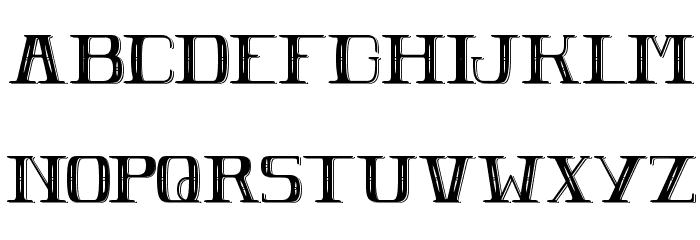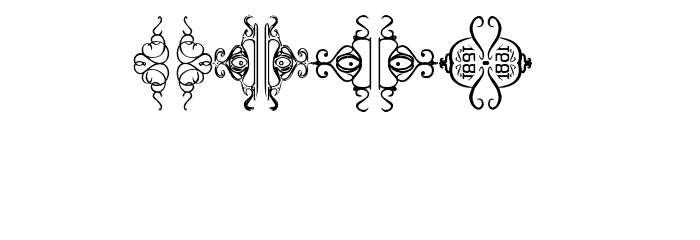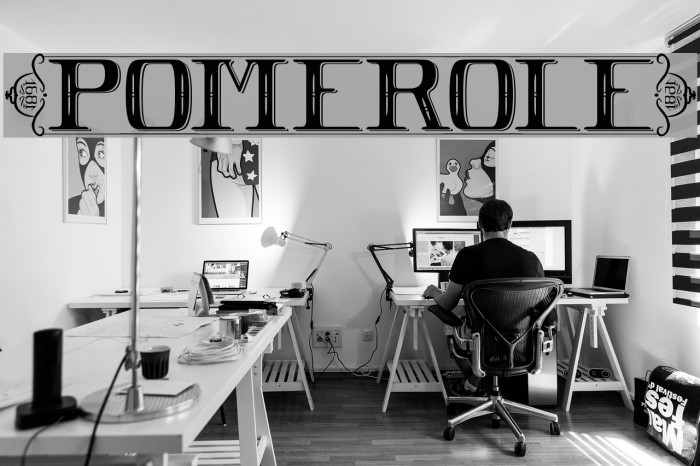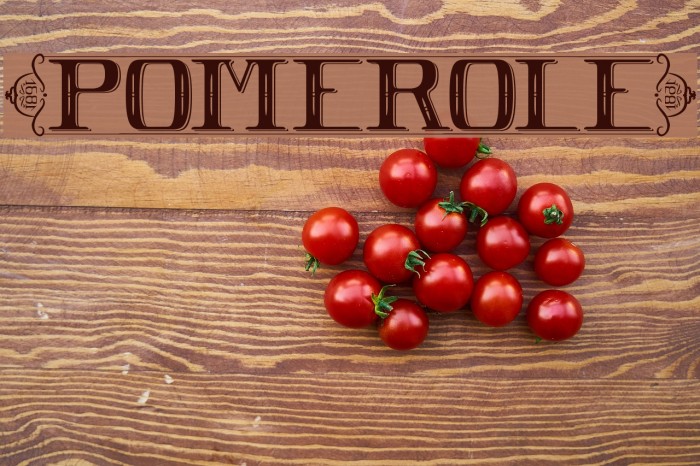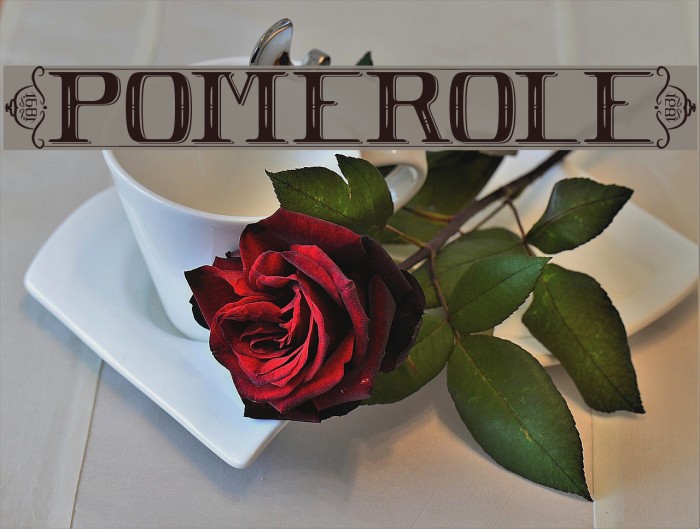
6POMEROLE7 Font
This font exhibits a highly decorative and ornate style, characterized by intricate detailing within each letterform. The uppercase letters are bold and feature elaborate embellishments that give a sense of elegance and sophistication. The font's design includes unique flourishes and serifs that extend beyond the typical boundaries of each character, creating a sense of grandeur and complexity. The overall appearance is reminiscent of vintage or classical typography, often seen in historical documents or signage. The decorative elements are consistent across the alphabet, ensuring a cohesive and harmonious look.
An ornate and decorative font with intricate detailing and vintage appeal.
- Proposed Projects: Ideal for use in vintage-themed designs, wedding invitations, historical documents, or any project requiring a touch of elegance and sophistication.
- Overall Style: Vintage